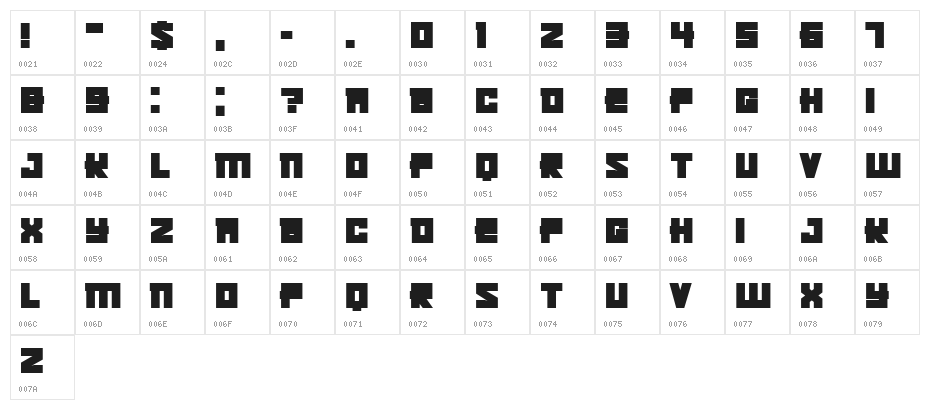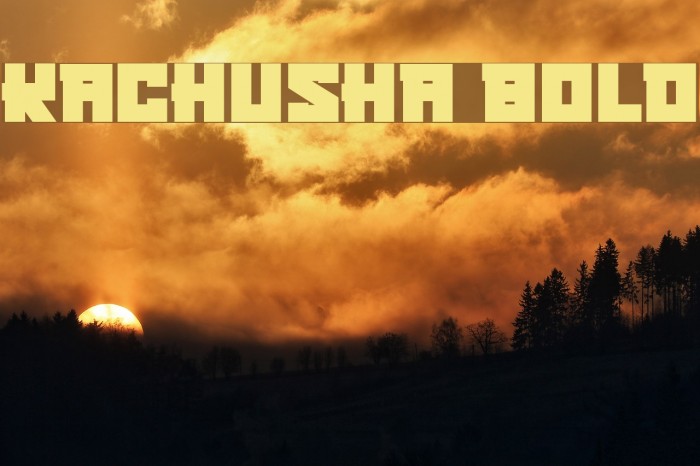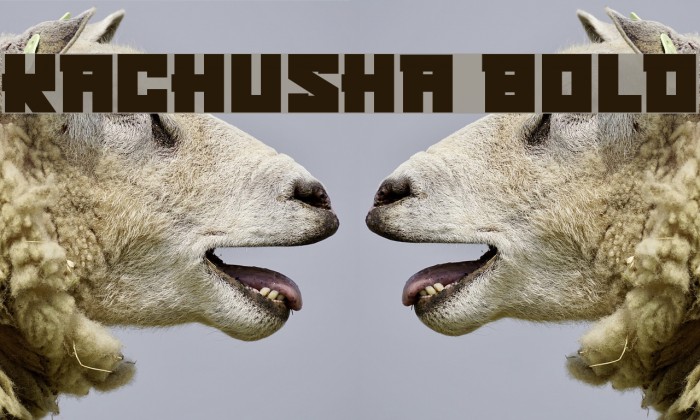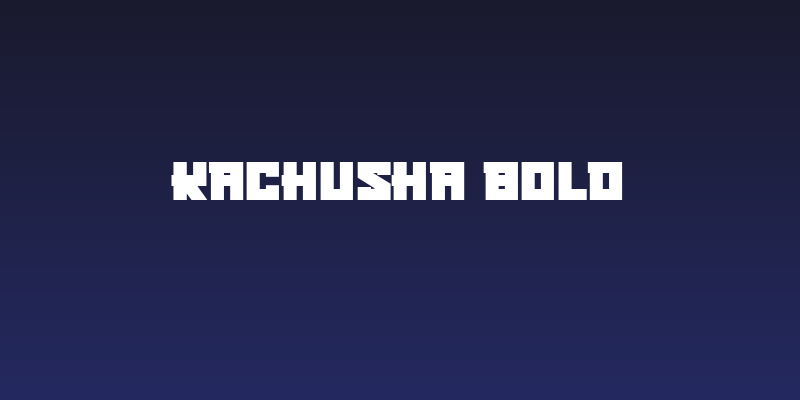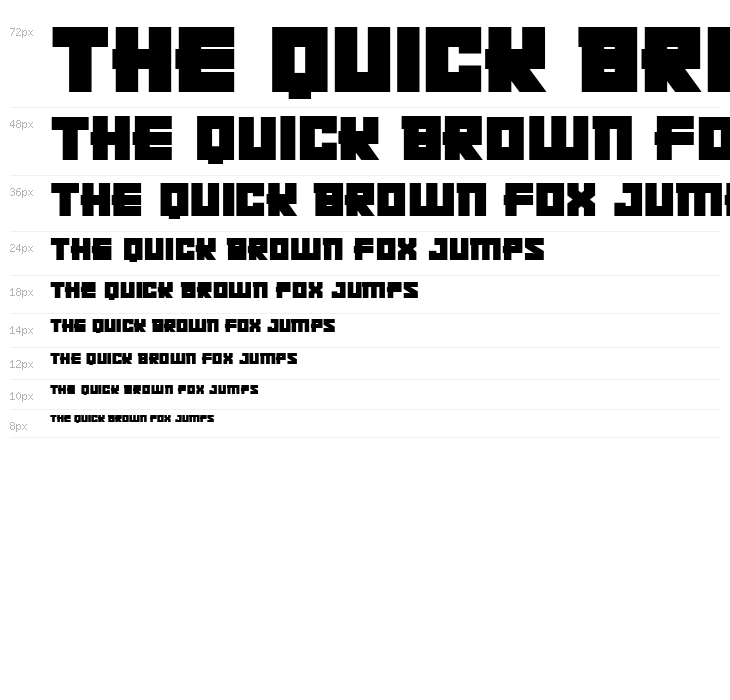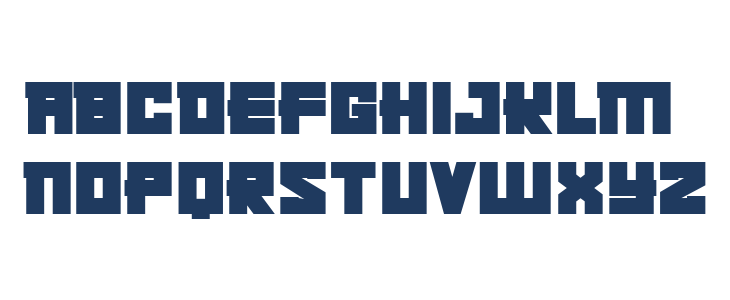
Kachusha Bold Font
Kachusha Bold Description
This font showcases a bold, geometric style with a strong presence. Each character is constructed with thick, block-like shapes that convey a sense of solidity and strength. The angular design elements give it a modern, industrial feel, making it ideal for projects that require a bold statement. The uppercase and lowercase letters maintain a consistent weight, ensuring uniformity across text. Numbers and special characters are designed with the same robust characteristics, enhancing the font's cohesive appearance.
| Proposed Projects | Ideal for posters, logos, branding, and headlines that need a bold, impactful look. |